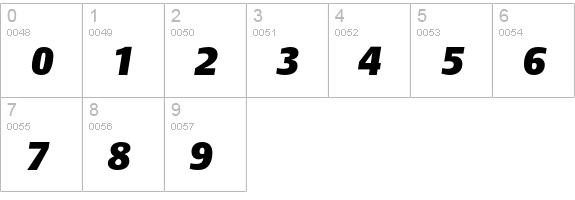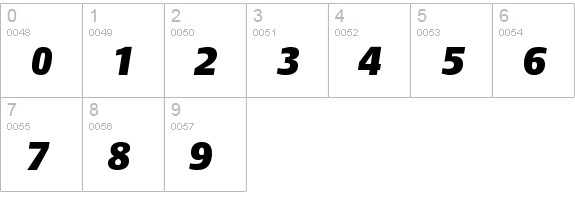
DTLArgoT-HeavyItalic Font Details
The DTLArgoT-HeavyItalic font is a bold and stylish typeface that exudes a sense of strength and elegance. Its heavy italic design lends a touch of sophistication to any text, making it perfect for headlines, titles, and other attention-grabbing elements. The unique letterforms of this font give it a modern and dynamic look, while maintaining readability and clarity. What sets DTLArgoT-HeavyItalic apart is not only its striking appearance, but also the fact that it is available for free download at FontsMarket.com. This means that you can easily enhance your designs with this striking font without breaking the bank. Whether you're working on a branding project, a publication, or any other creative endeavor, DTLArgoT-HeavyItalic is sure to make a bold statement. With its sleek curves, sharp angles, and distinctive style, DTLArgoT-HeavyItalic is a versatile font that can be used in a variety of design applications. Add a touch of sophistication and flair to your projects with this eye-catching typeface, now offered for free at FontsMarket.com.